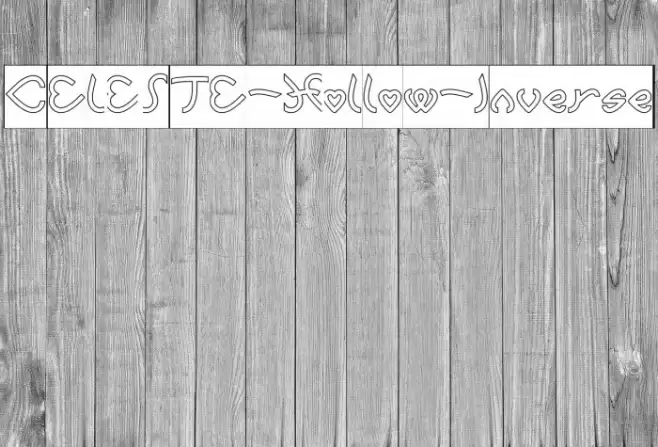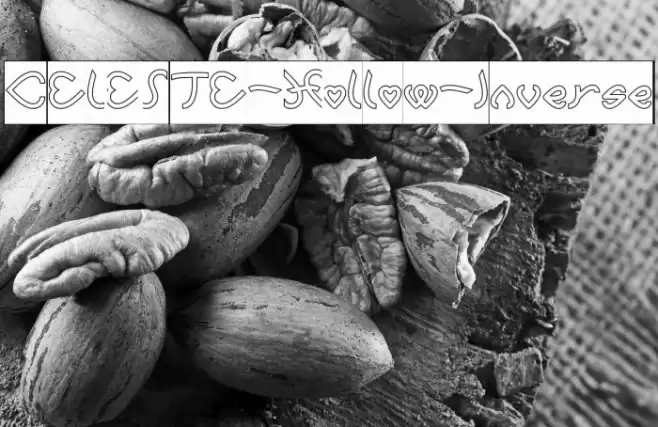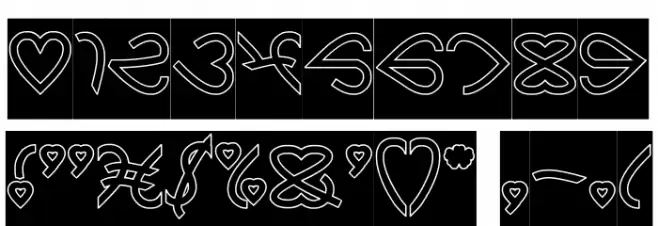
CELESTE-Hollow-Inverse Font
CELESTE-Hollow-Inverse Description
This font features a playful and decorative style, characterized by its hollow, heart-shaped elements integrated into each character. The uppercase and lowercase letters, as well as numbers and special characters, maintain a consistent theme of love and whimsy. The lines are smooth and flowing, creating a sense of movement and lightness. The unique design makes it stand out, with each character having a distinct personality while maintaining a cohesive look across the entire set. This font is perfect for projects that require a touch of romance or fun, such as Valentine's Day cards, wedding invitations, or playful branding.
A decorative font with hollow, heart-shaped elements, perfect for romantic or playful designs from Uncategorized fonts.
- Proposed Projects: Ideal for Valentine's Day cards, wedding invitations, playful branding, and romantic-themed projects.
- Use Case: Headlines, Logos, Invitations